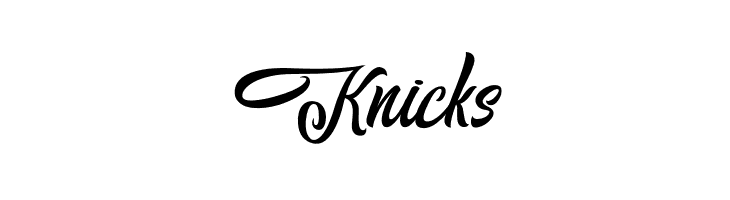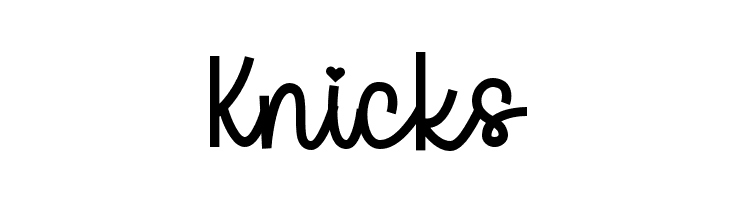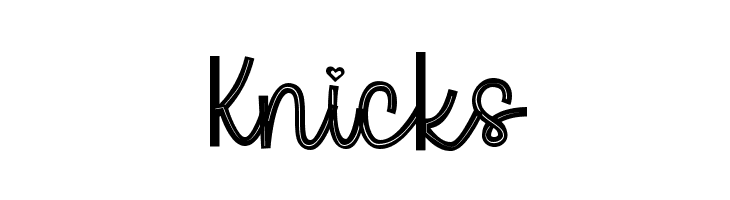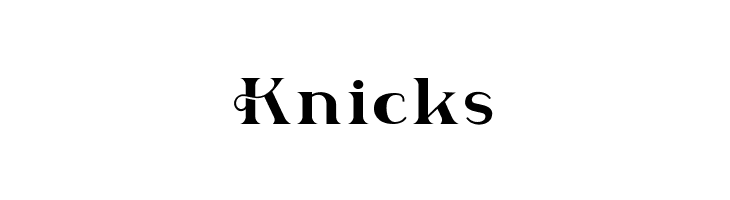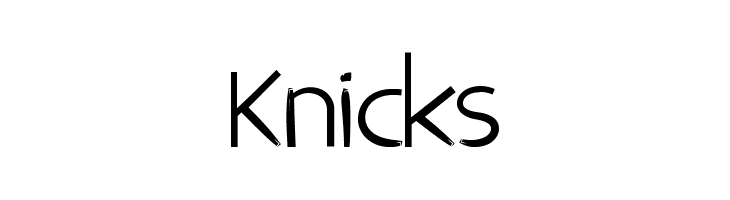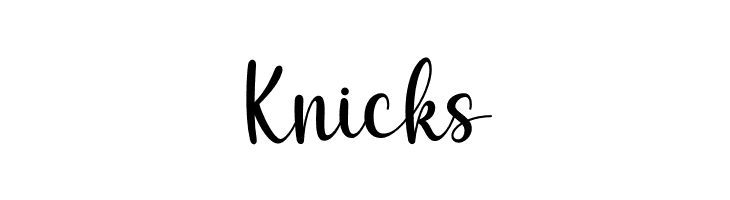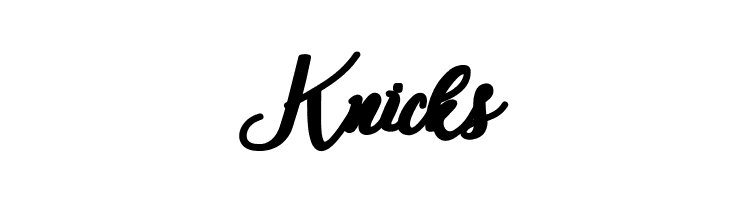
• Aloen
An elegant serif font with decorative flourishes and classic elements.
• Aloha 1
A lively and elegant script font with flowing, cursive letterforms.
• Aloha 1
A playful, hand-drawn font with varied stroke thickness and a whimsical style.
• Aloha March
A playful, handwritten script font with a whimsical and friendly style.
• Aloha March line
A playful, hand-drawn script font with whimsical embellishments.
• Aloha Obelic GT Demo
A bold, playful handwritten font with a lively and energetic style.
• Aloha Octopus Personal Use Regular
A bold, flowing script font with a modern and dynamic style.
• AlohaFriday-PersonalUse
A decorative script font with elegant, flowing letterforms and ornate details.
• AlohaOctopusPersonalUse-Reg
A bold, modern script font with flowing, connected letters.
• AlohaSummer
A playful, handwritten font with smooth, rounded strokes and a casual vibe.